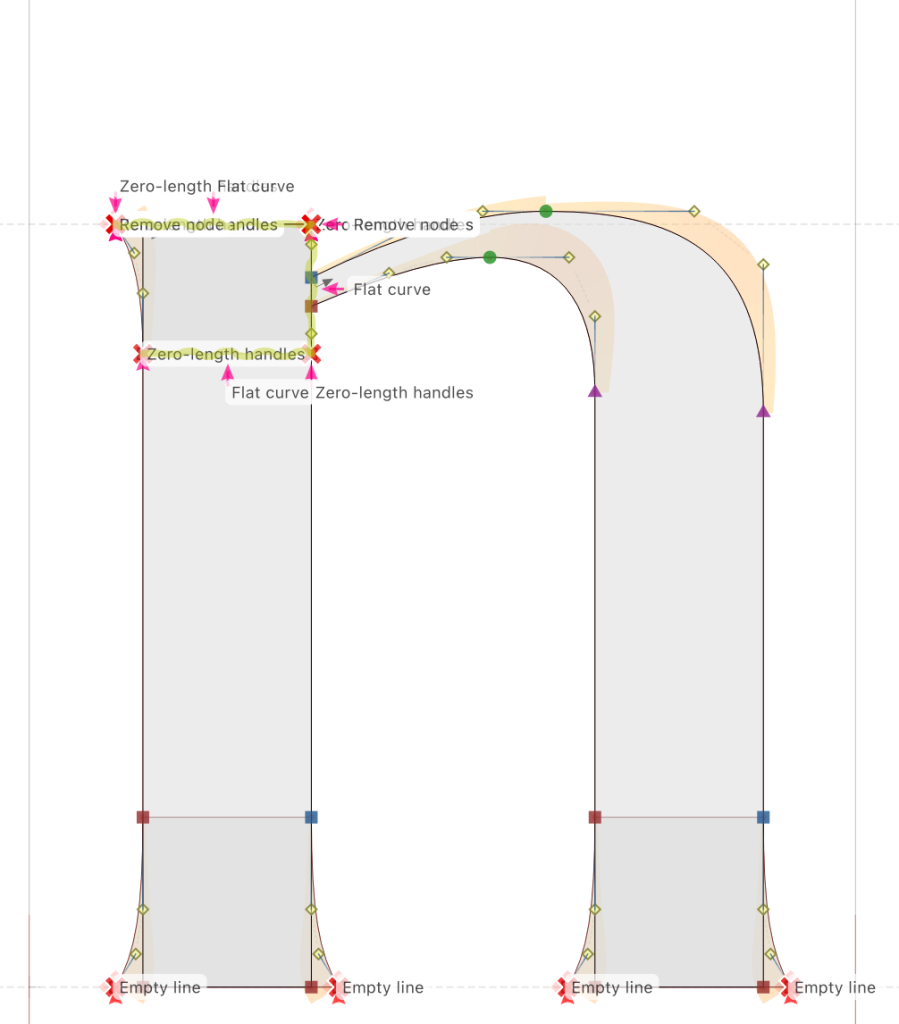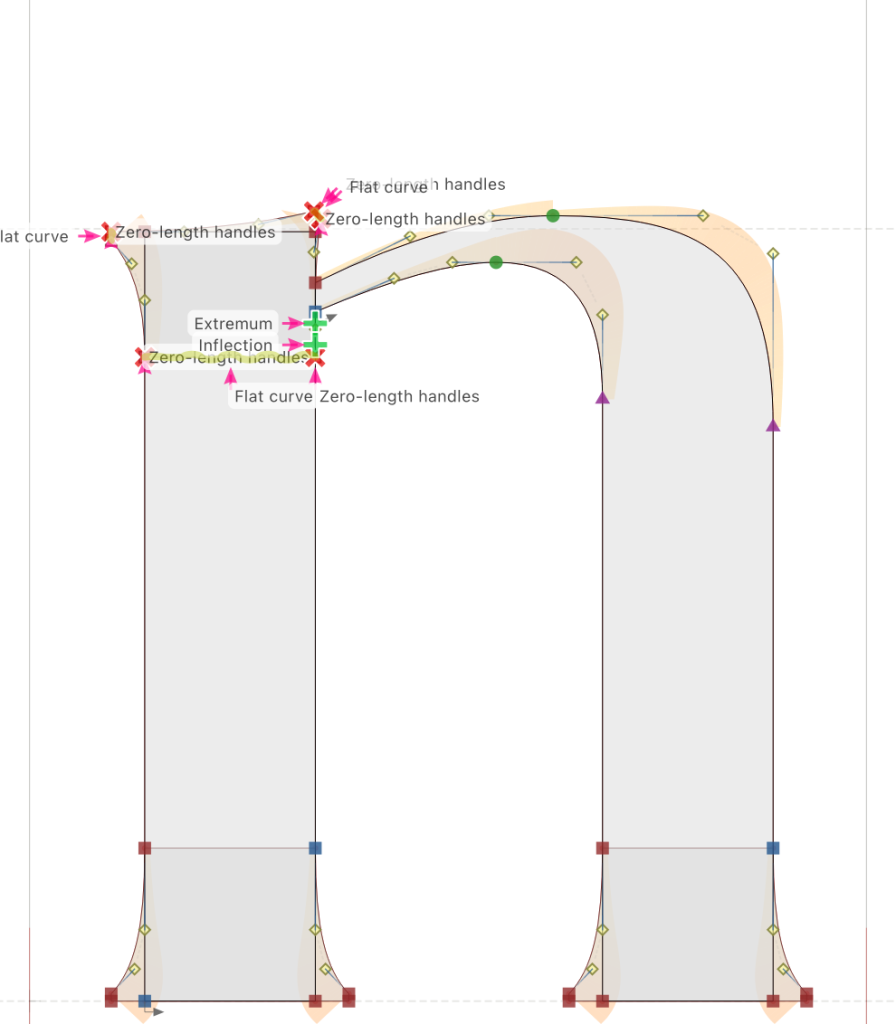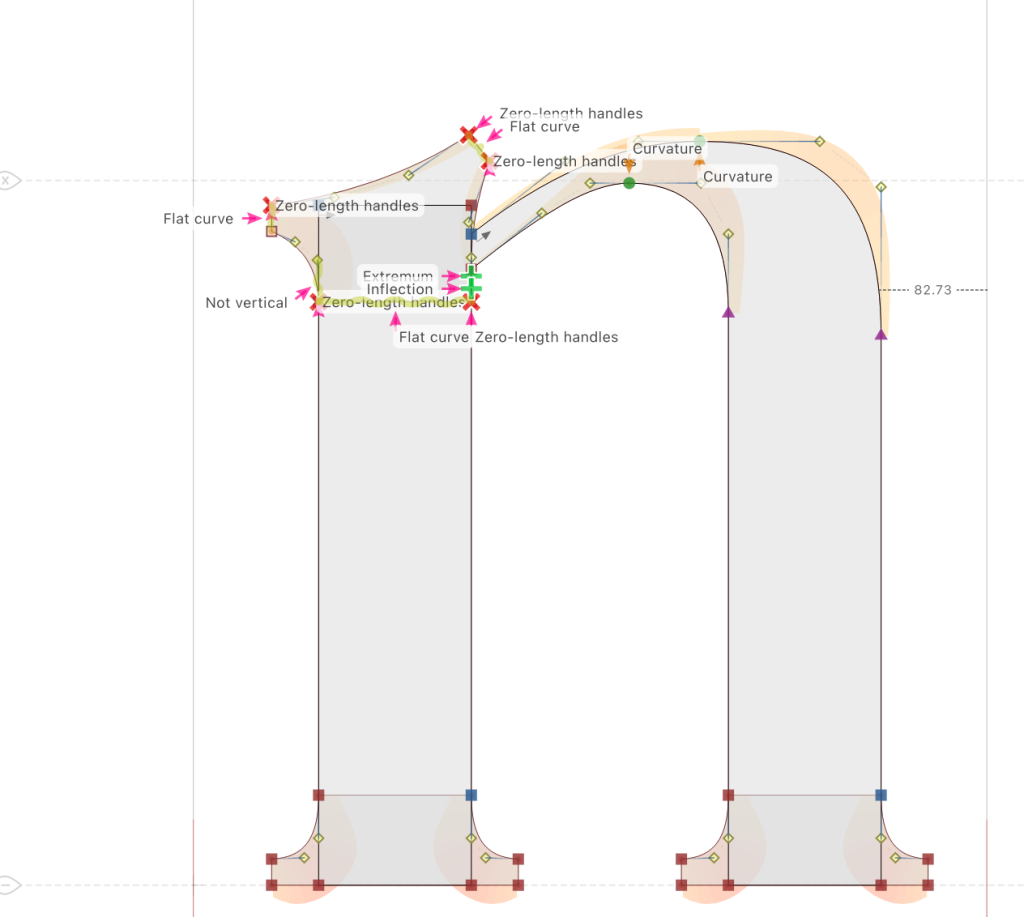
Classification: Hybrid Display Serif – Modern/Rational with Transitional & Flare-Slab Influences
Variation Axis: Serif Shapes (and optical Size)
Butique is a hybrid serif display typeface created by a student in the 2024–25 Typeface Design course at FBAUP. Developed from the Foundational Hand and drawing from Gerrit Noordzij’s stroke theory, the project introduces students to the logic of typographic contrast and modulation through a balance of vertical stress and moderate stroke differentiation.
Classified as a Modern/Rational display serif with pseudo–slab serif flair, Butique features flare-wedge shaped terminals that lend it a unique presence between the Transitional and Slab Serif styles. Inspired by the elegant expressiveness of Ghofey Regular, it aims to balance retro sophistication with contemporary charm, making it suitable for branding, invitations, book covers, and decorative applications.
Its structural robustness, with uppercase heights of approx. 750px and lowercase at 530px, ensures high impact in headline and display settings, though it sacrifices subtle detailing when scaled down for body text or captions.